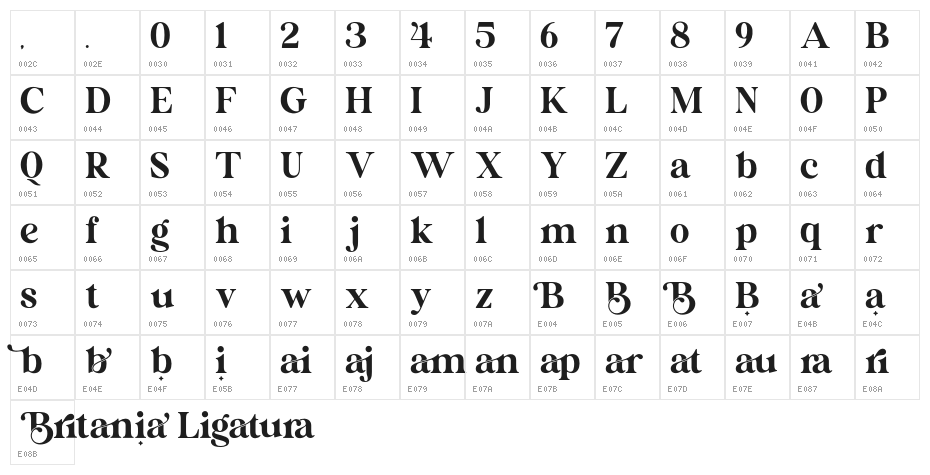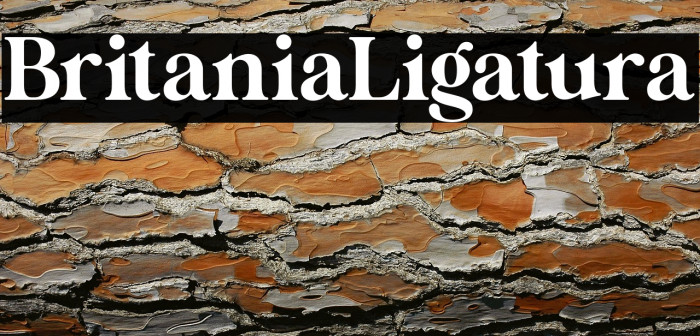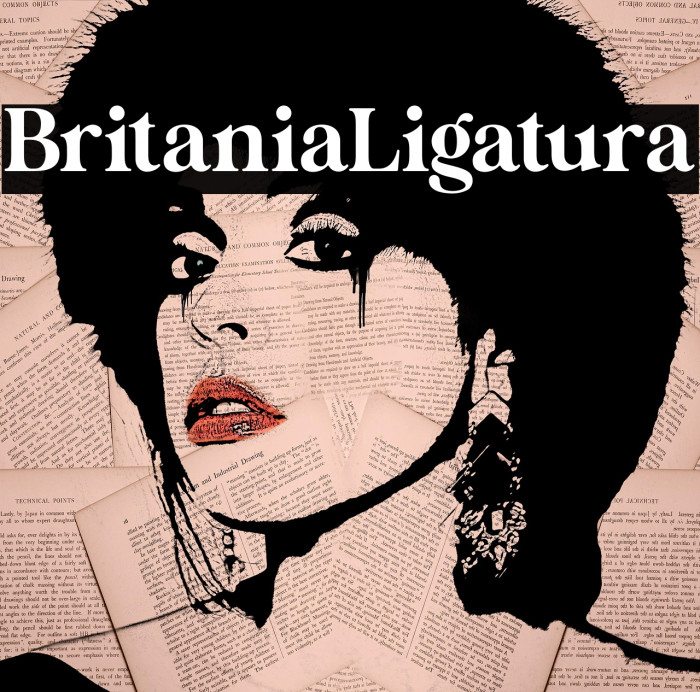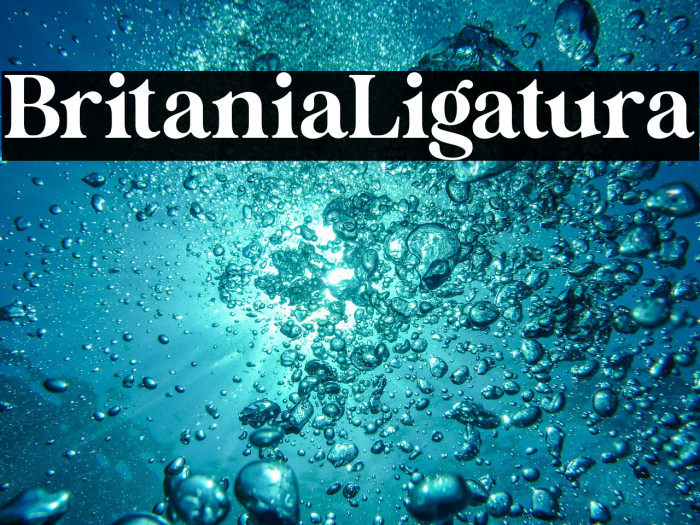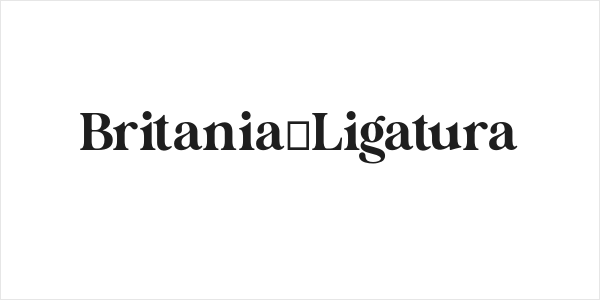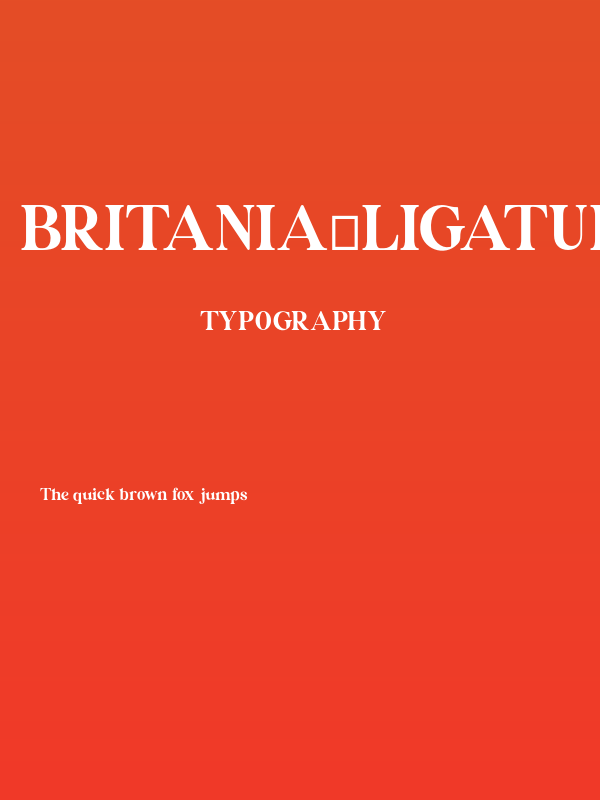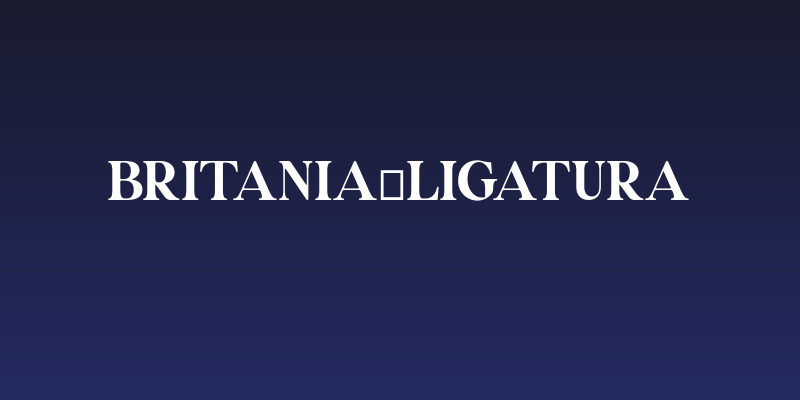
Britania_Ligatura Font
Britania_Ligatura Description
This font features a classic serif style with elegant and pronounced serifs that give it a traditional and sophisticated appearance. The uppercase letters are bold and commanding, while the lowercase letters maintain a consistent and harmonious flow. The numerals are distinct and easily legible, making them suitable for various applications. The overall design is balanced, with a medium contrast between thick and thin strokes, adding to its readability and aesthetic appeal. The font's style is reminiscent of vintage typefaces, yet it maintains a modern touch that makes it versatile for contemporary use.
| Proposed Projects | Ideal for book covers, editorial design, branding, and formal invitations. |